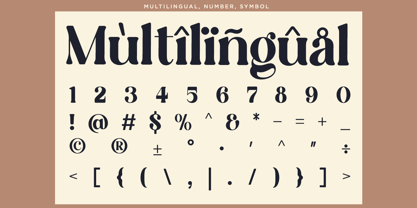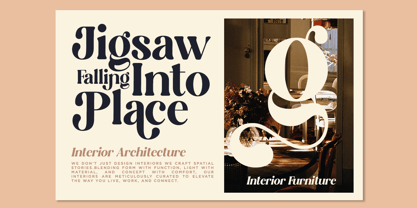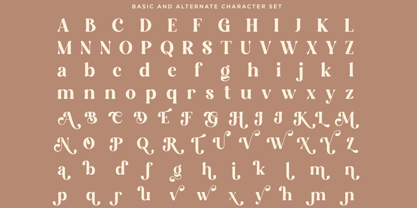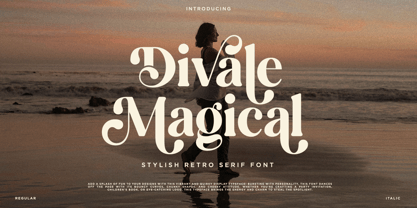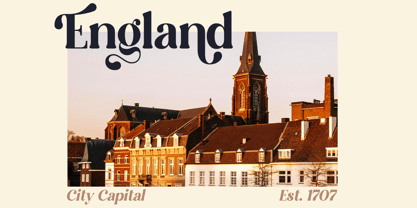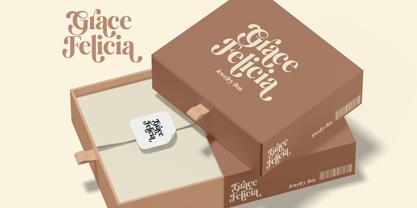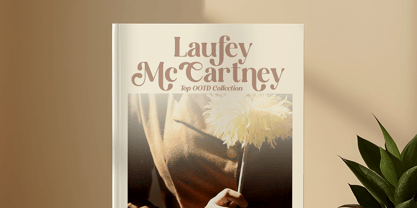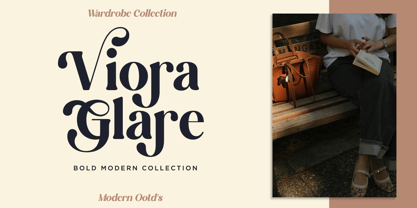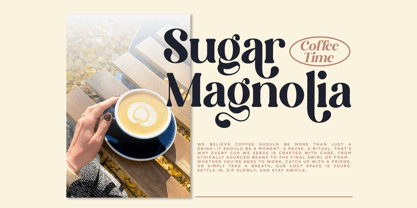
Divale Magical
by RagamKata
The Divale Magical Font Family was designed by Yogiswhara Dio Prakoso Riadi and published by RagamKata. Divale Magical contains 2 styles and family package options.
Bring charm and character to your designs with Divale Magical, a bold and whimsical display typeface crafted for standout storytelling. With its soft curves, quirky terminals, and enchanting letterforms, Divale Magical blends retro aesthetics with a modern twist—perfect for making any project feel warm, fun, and unforgettable. From coffee shop branding to book covers, packaging to social media, this font adds a dose of creativity and flair wherever it's used. What you will get : -Divale Magical Regular -Divale Magical Italic -Alternates & Stylish Ligatures -Multilingual Support Thank you for Visit us. Have a nice day !